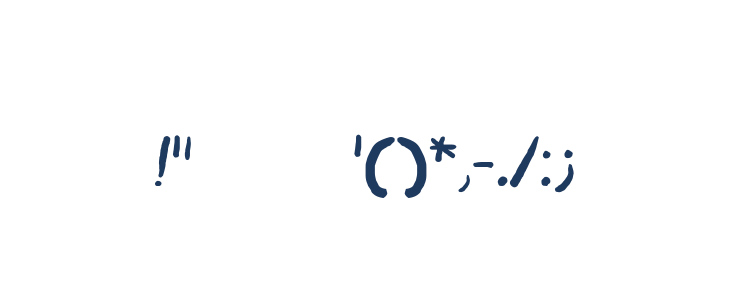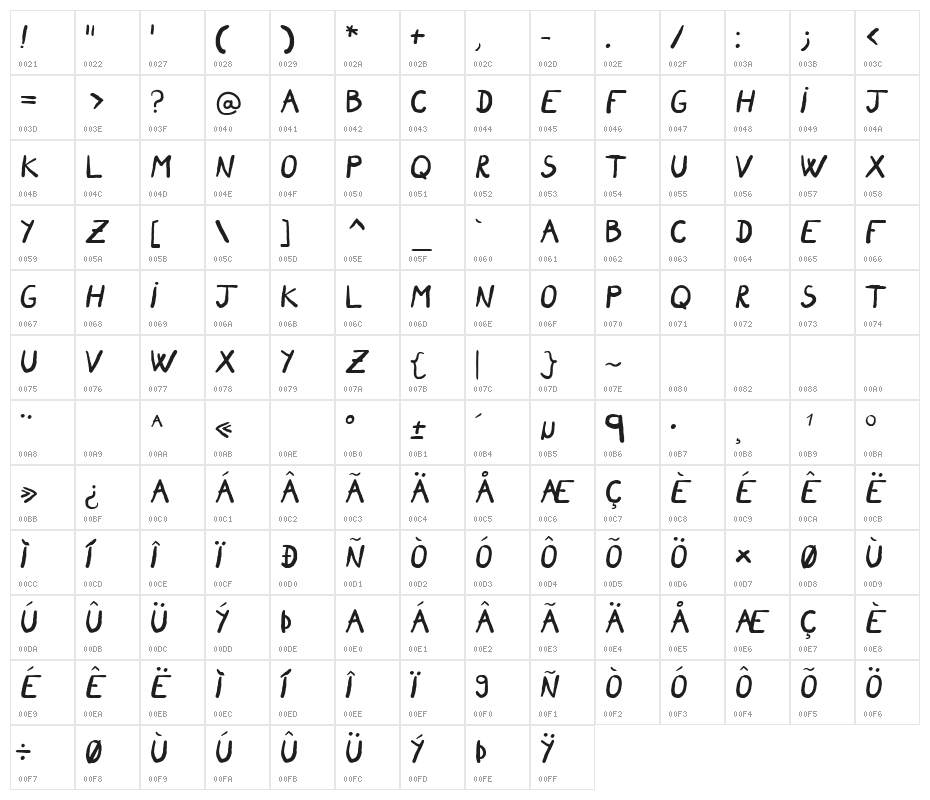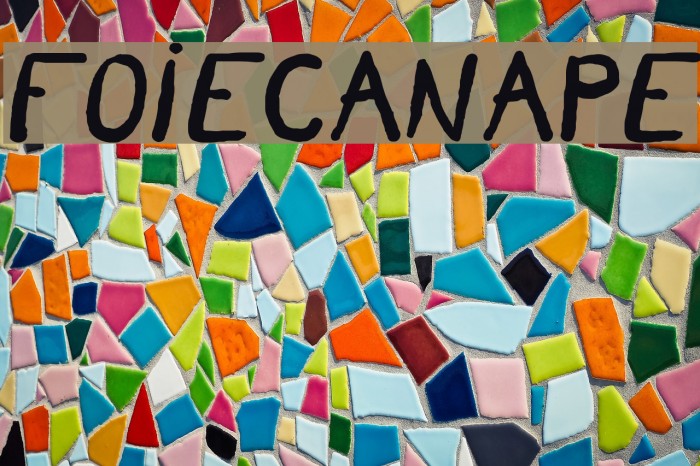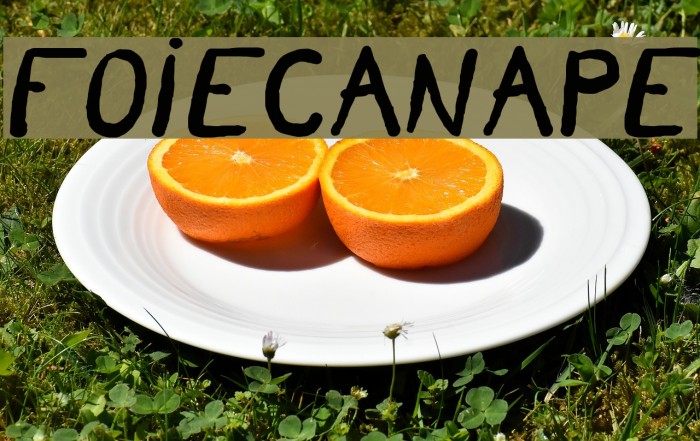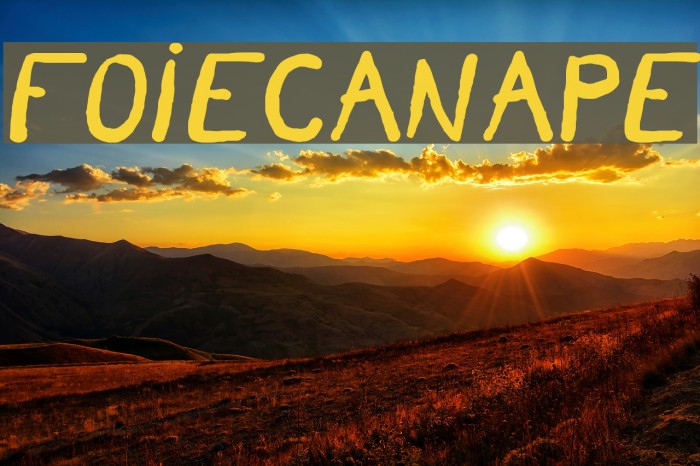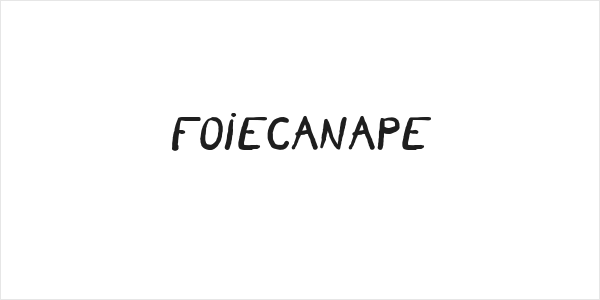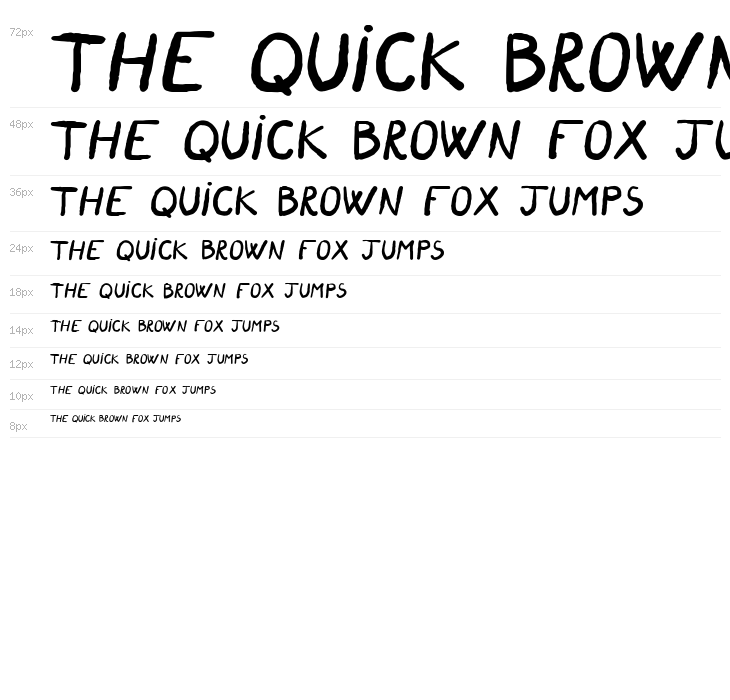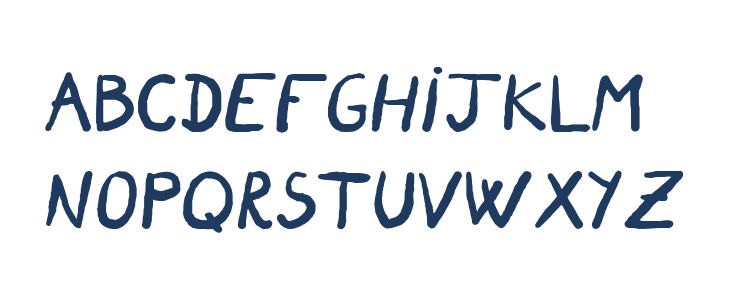
FoieCanape Font
FoieCanape Description
This font features a playful and casual handwritten style, characterized by its irregular strokes and slightly uneven baseline. The letters have a natural, organic feel, with rounded edges and a slight slant that adds to its informal appearance. The uppercase and lowercase letters maintain a consistent style, with a moderate contrast in stroke thickness that enhances readability. The numerals and special characters are designed to match the overall aesthetic, making this font versatile for various creative projects.
| Use Case | Headlines, Logos, Informal text |
| Proposed Projects | Ideal for greeting cards, children's books, casual branding, and social media graphics. |